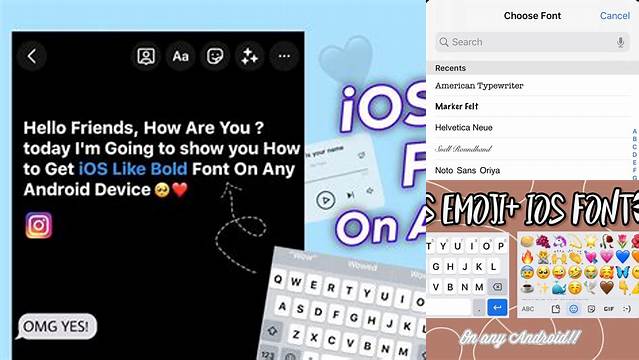
IOS Fonts On Android: Free Download & Guide
Hey guys! Ever looked at an iPhone and thought, "Wow, that font is slick!"? Well, you're not alone. A lot of Android users are digging the iOS font aesthetic and want to bring that same vibe to their own devices. The good news is, it's totally possible! This guide is your one-stop shop for getting iOS fonts in TTF format onto your Android phone, completely free. Let's dive in!
1. Why Use iOS Fonts on Android?
Why would you even want to use an iOS font on your Android, you ask? Great question! The main reason is aesthetics. iOS fonts, particularly San Francisco, often look cleaner and more modern than the default Android fonts. It's all about personalizing your phone to reflect your own style. Maybe you just prefer the way the letters are shaped, or perhaps you're developing an app and want it to have a consistent look across both iOS and Android platforms. Whatever your reason, switching up your font can give your phone a fresh, new feel.
Beyond the visual appeal, using a different font can even improve readability for some people. Certain fonts are designed with specific accessibility features in mind, such as increased letter spacing or clearer differentiation between similar characters. While San Francisco might not be specifically designed for accessibility, you might find it more comfortable to read than your current font. Ultimately, it's about finding a font that works best for your eyes and your preferences.
It's also a fun way to experiment with your phone's customization options. Android is known for its flexibility, allowing you to tweak almost every aspect of the user interface. Changing the font is just one small piece of the puzzle, but it can make a big difference in how you experience your phone on a daily basis. Plus, it's a conversation starter! People will notice the change and ask you about it, giving you a chance to show off your tech-savvy side. So, if you're looking for a simple yet effective way to personalize your Android device, swapping out the font is a great place to start.
2. Finding Free iOS TTF Fonts
3. Installing iOS Fonts on Android (Rooted vs. Non-Rooted)
Here's where things diverge a bit, depending on whether your Android device is rooted or not. "Rooted" basically means you have superuser access to your phone's operating system, giving you more control over system-level settings. If you're not sure whether your phone is rooted, it probably isn't. Rooting is a more advanced process that most users don't typically do.
For Non-Rooted Devices:
If your phone isn't rooted, the process is a bit more limited. You can't directly change the system font across the entire device without root access. However, you can still use iOS fonts in apps that allow custom font selection. Many apps, such as Microsoft Word, Polaris Office, and some social media apps, let you choose your preferred font for documents or posts.
To use the iOS font in these apps, simply copy the TTF file to your phone's internal storage or SD card. Then, within the app's settings, look for the font selection option. The app should allow you to browse your phone's storage and select the TTF file you downloaded. Once you've selected the font, the app will use it for displaying text within its interface.
For Rooted Devices:
If your phone is rooted, you have much more flexibility. You can use apps like FontFix, iFont, or FontFace to change the system font across your entire device. These apps require root access to modify system files, so they won't work on non-rooted phones.
29. Font Alternatives That Offer Great Readability
If the exact iOS font is difficult to get, there are plenty of open-source alternatives for great readability like: Montserrat, Raleway, and Poppins.
30. Final Thoughts: Express Yourself!